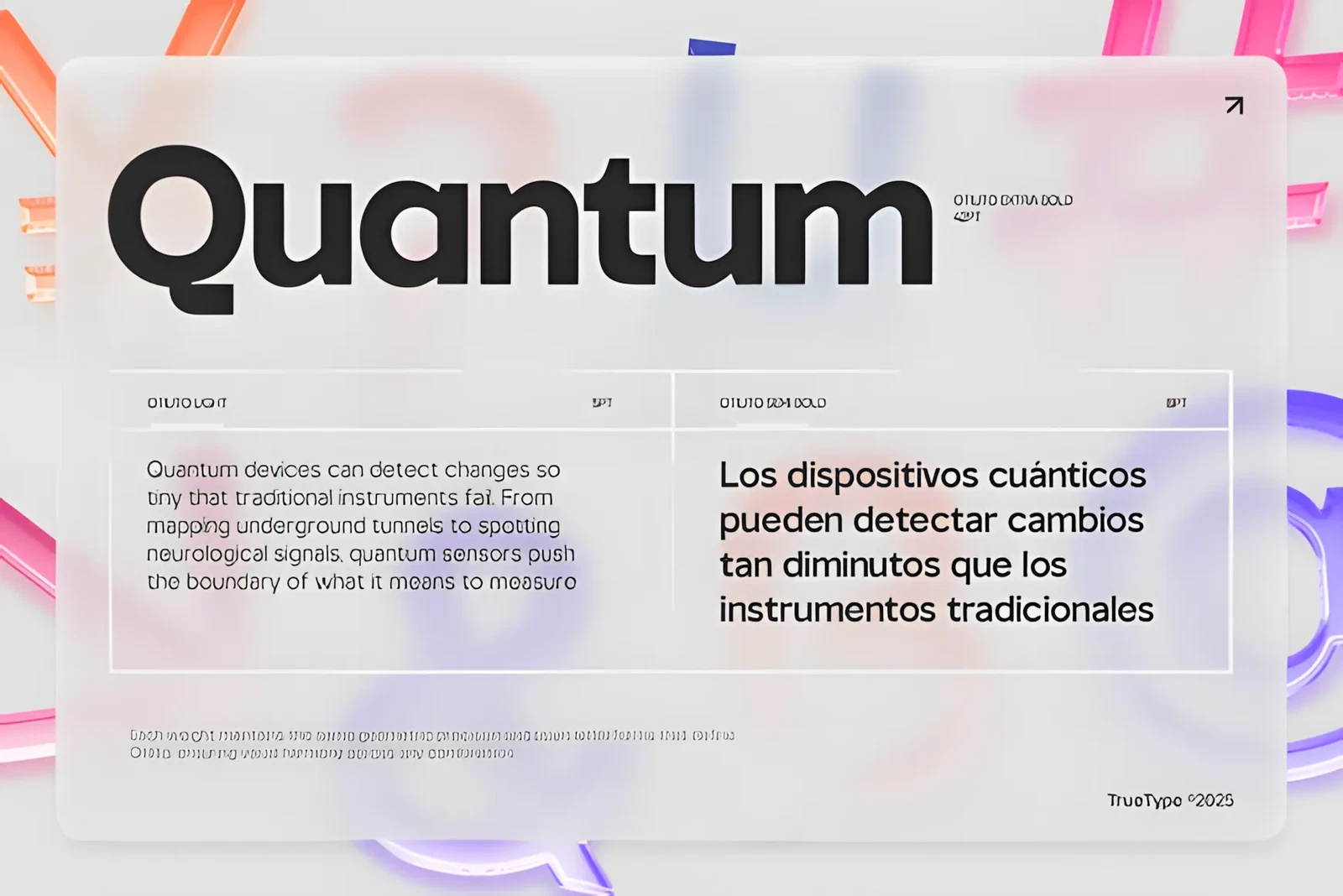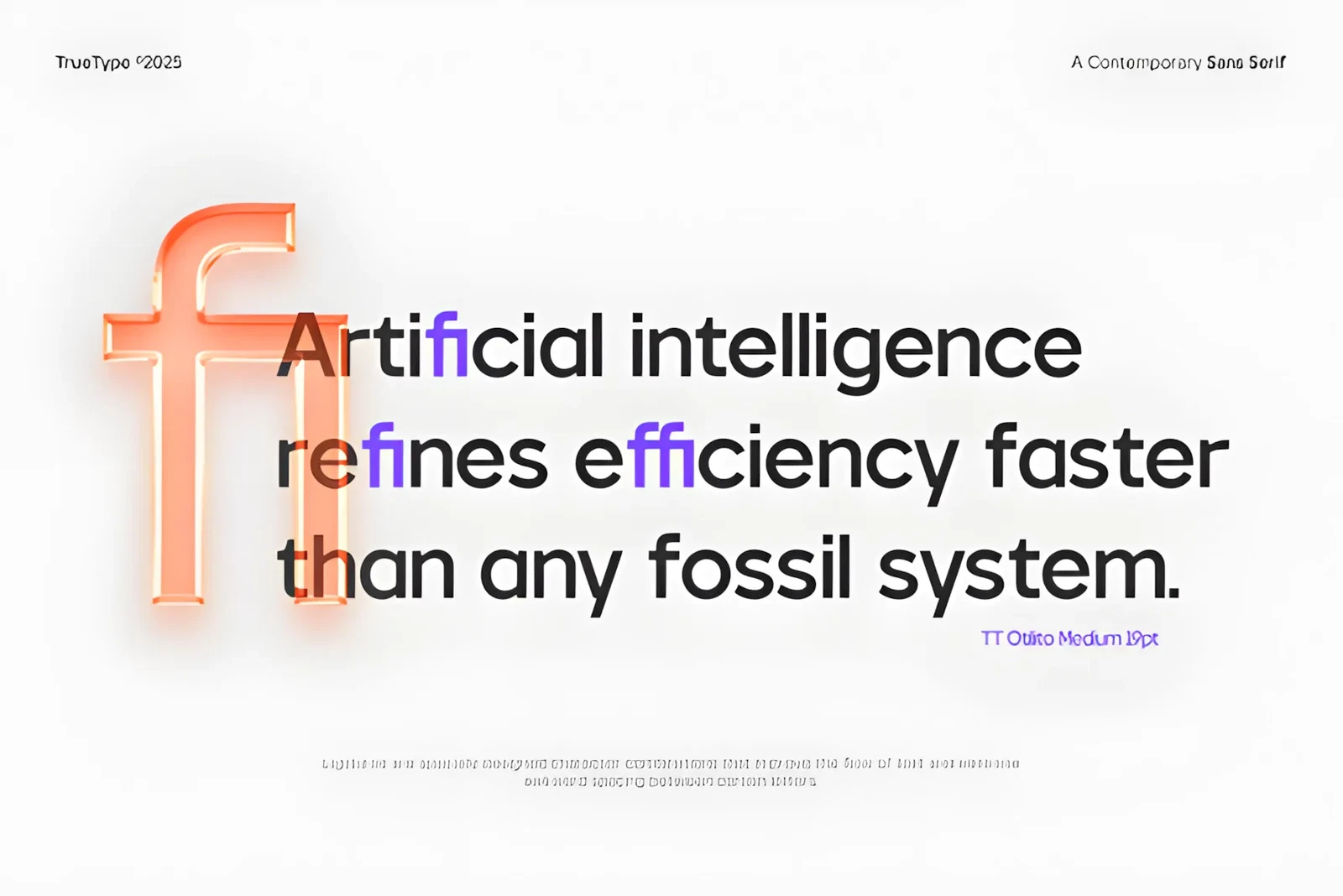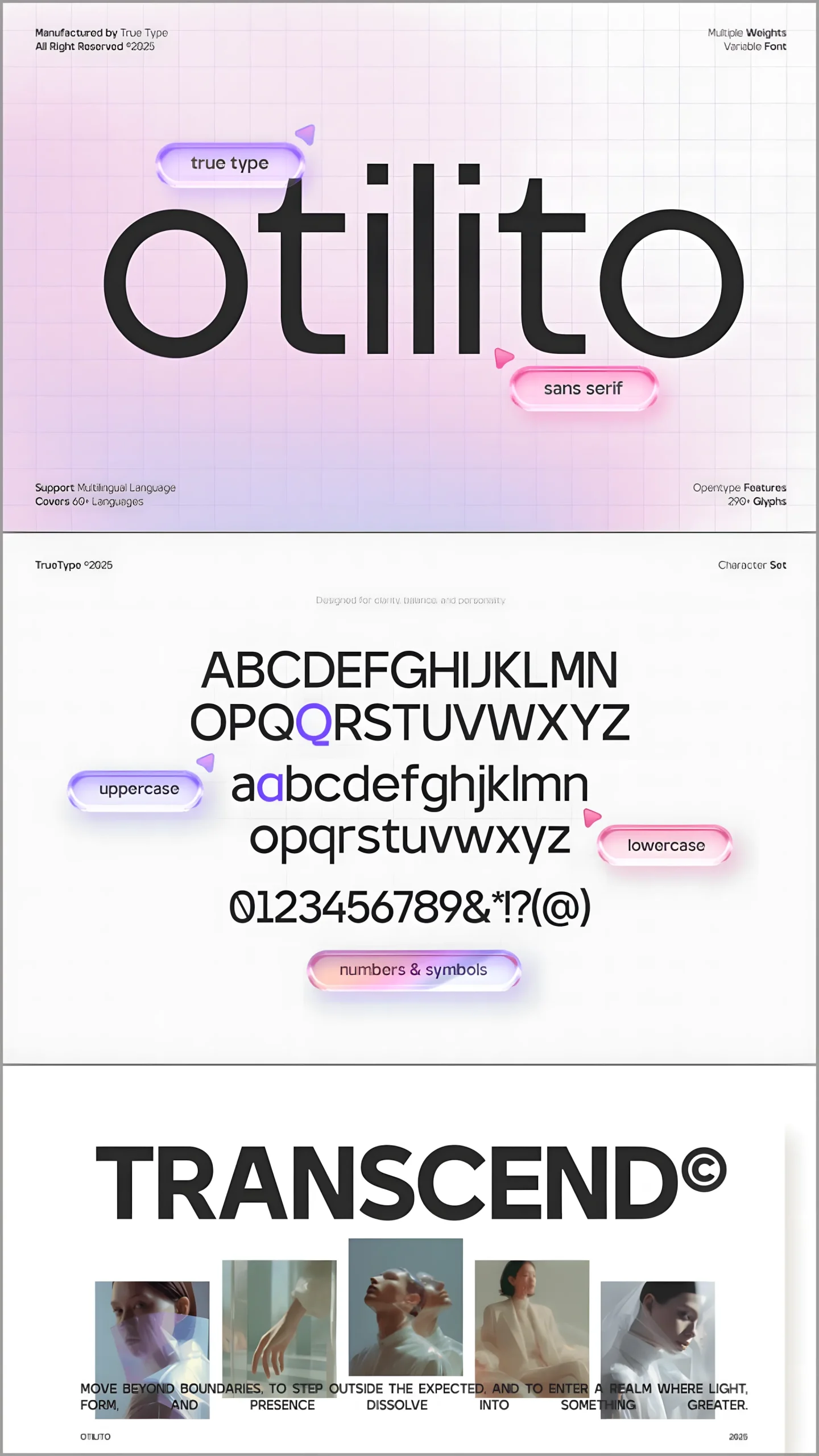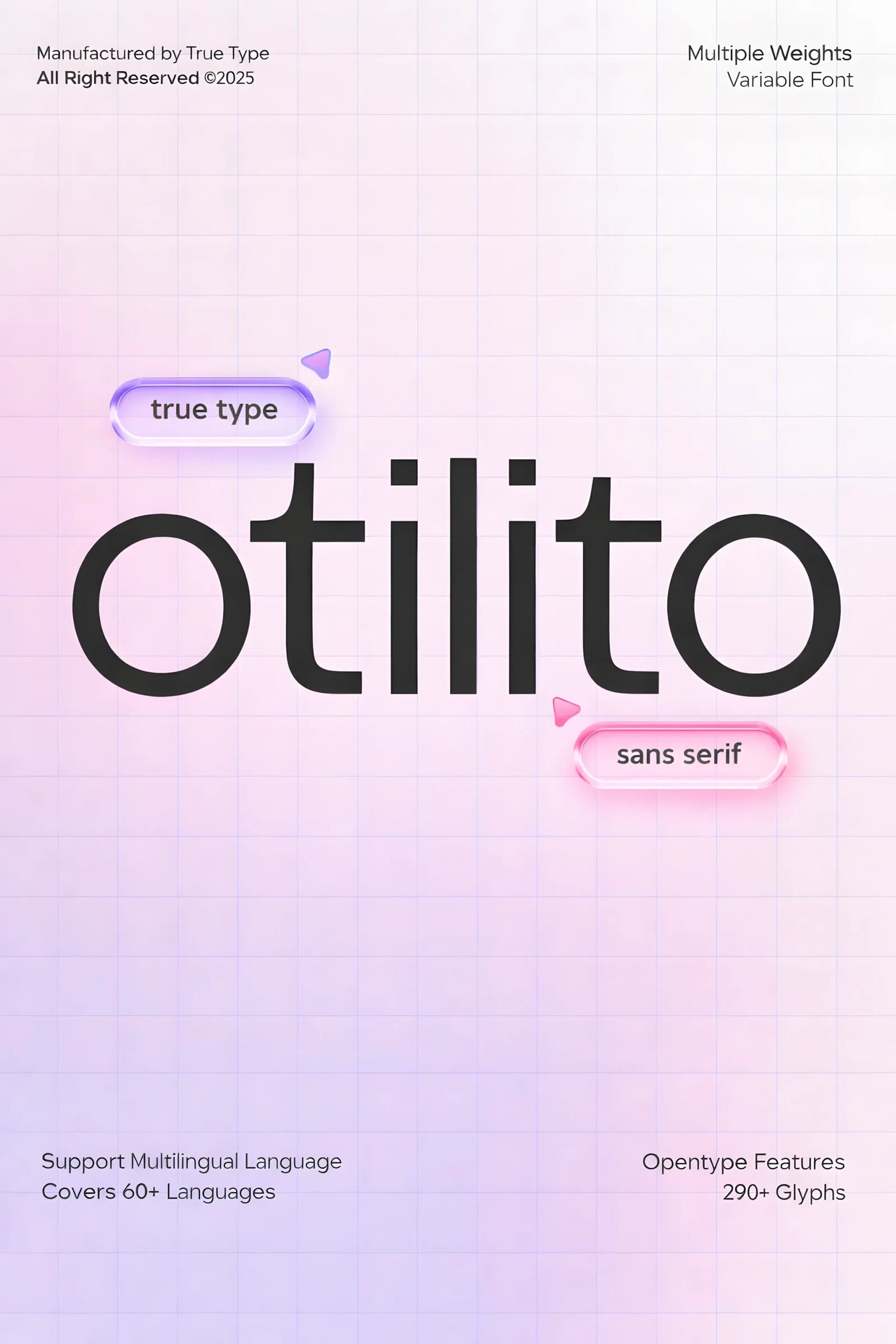
Some fonts are designed to decorate, others to communicate. TRT Otilito clearly belongs to the second category. It is a modern sans-serif typeface created to deliver clarity, balance, and subtle personality across branding, editorial, and digital projects.
This font blends geometric structure with semi-grotesque characteristics, resulting in a clean but expressive typeface that feels professional without becoming rigid. It is built for designers who want precision with a touch of originality.
A Typeface That Balances Function and Character
TRT Otilito is intentionally designed to sit between strict geometry and humanist warmth. The letterforms are clean and structured, yet small details prevent the font from feeling mechanical.
This balance makes the typeface suitable for projects where readability is critical, but visual identity still matters. It feels neutral enough for interfaces and bold enough for branding.
The font communicates confidence quietly, without unnecessary decoration.
Weight Range and Font Family Structure
One of the strongest aspects of TRT Otilito is its complete weight system. The family includes:
- Thin
- Extra Light
- Light
- Regular
- Medium
- SemiBold
- Bold
- ExtraBold
This range allows designers to build entire typographic systems using a single font family. Headlines, subheadings, body text, and UI labels can all stay consistent while still offering visual hierarchy.
The weights work well together, maintaining rhythm and alignment across layouts.
Visual Style and Typographic Feel
TRT Otilito carries a modern, editorial tone. It feels:
- clean and professional
- contemporary without being trendy
- flexible across print and digital use
- confident but not aggressive
The expanded counters and balanced proportions improve legibility, especially on screens. Uppercase text looks strong and authoritative, while lowercase text remains comfortable for longer reading.
This makes the font especially effective for mixed-content designs.
Where TRT Otilito Performs Best
Branding and Visual Identity
TRT Otilito is well suited for branding projects that need a modern, reliable voice. It works particularly well for:
- technology brands
- startups and digital products
- creative studios
- corporate rebrands
Its neutrality allows brand colors and layouts to take center stage while typography supports the message.
Editorial and Publishing
The font performs smoothly in editorial layouts. Magazines, reports, and digital publications benefit from its clarity and consistent spacing.
Different weights can be used to define structure without introducing multiple typefaces, which helps maintain a cohesive visual language.
UI, Web, and Digital Interfaces
TRT Otilito is optimized for screen readability. It scales cleanly across:
- websites and landing pages
- dashboards and interfaces
- mobile and desktop layouts
The font can be easily converted to web formats, making it suitable for modern UI and UX workflows.
Multilingual and Technical Support
The font includes extensive language support, covering 60+ languages, along with numbers, punctuation, and full glyph sets. This makes it suitable for international projects without compromises.
Why Semi-Grotesque Fonts Stay Relevant
Semi-grotesque sans-serif fonts remain popular because they offer structure without coldness. TRT Otilito fits perfectly into this category, combining clarity with subtle personality.
It avoids extremes, which is why it adapts so well across industries and design styles. This kind of versatility is what keeps a font useful over time.
Who This Font Is Best For
TRT Otilito is especially well suited for:
- graphic and UI designers
- branding specialists
- agencies and studios
- product designers
- anyone building modern visual systems
It works equally well for digital-first projects and print-based design.
Final Perspective
TRT Otilito is a font built on intention. It doesn’t try to impress through excess, but through balance, clarity, and reliability. Its wide weight range, modern structure, and subtle character make it a strong foundation for contemporary design work.
For designers seeking a clean, flexible sans-serif that can support branding, editorial, and interface projects with confidence, TRT Otilito offers a professional and future-proof solution.